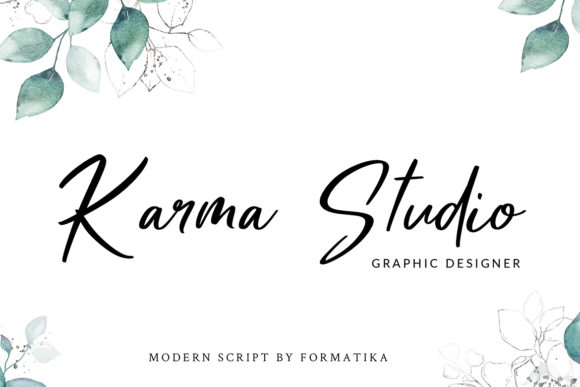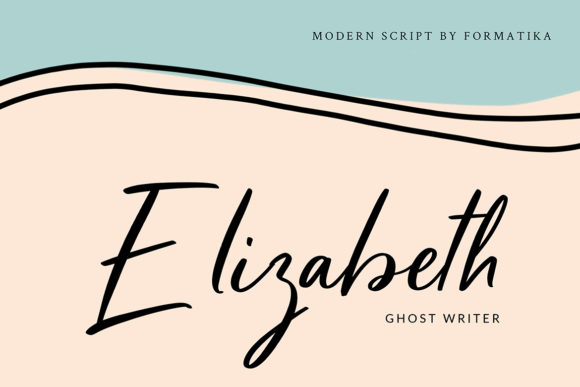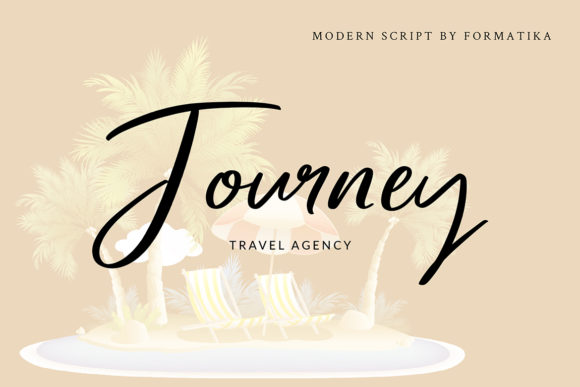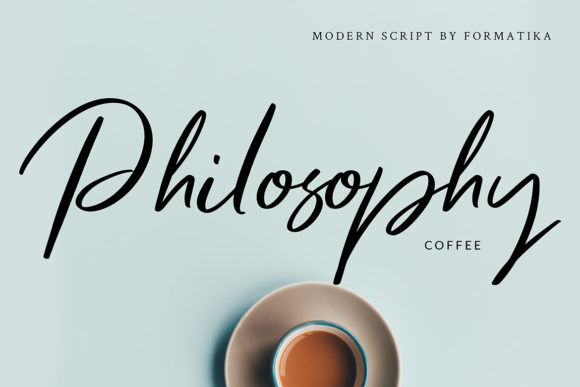
Mellany Font
About Mellany Font
Mellany is a beautiful script font that will make any text appear elegant, luxurious, and modern. It will elevate a wide range of design projects to the highest level, be it branding, headings, wedding designs, invitations, signatures, logos, labels, and much more!